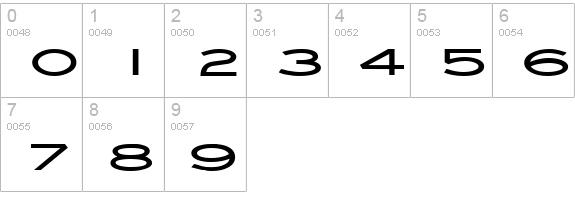
Eye glass Extended Bold Font Details
Eye glass Extended Bold is a strong, high-contrast, extended-width variant in the Eye typeface family \xE2\x80\x94 well suited to headlines, attention-grabbing titles, and strong calls-to-action.
Eye glass Extended Bold font is a modern and stylish typeface that exudes confidence and sophistication. With its bold and eye-catching design, this font is perfect for creating impactful headings, titles, and other design elements that demand attention. The sleek lines and sharp edges of Eye glass Extended Bold make it a versatile choice for a variety of design projects, from branding to advertising to editorial design. And the best part? Eye glass Extended Bold font is available for free download at FontsMarket.com. This means you can easily add this stunning font to your collection without breaking the bank. Don't miss out on the opportunity to elevate your designs with the bold and beautiful Eye glass Extended Bold font. Download it now and unleash your creativity!